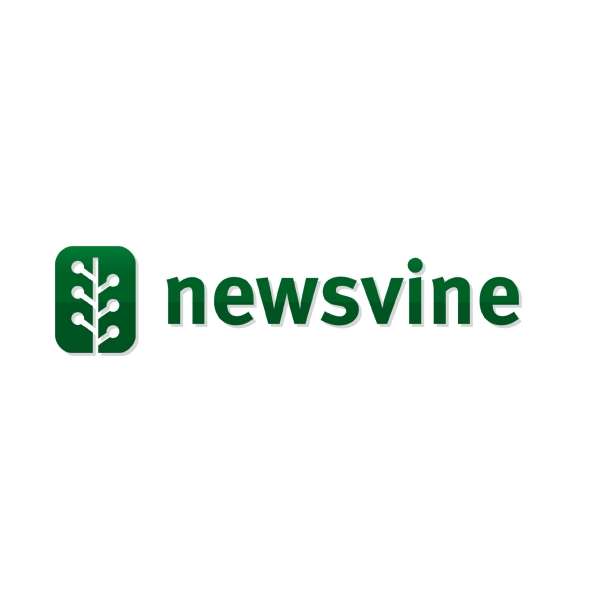
Newsvine Font
Fonts in UseNewsvine was a community-driven news website founded in 2005, allowing users to write articles, seed links, and participate in discussions. It was shut down by NBC News in 2017.
It is likely that the website logo employs FF Meta Bold, a humanist sans-serif font created by Erik Spiekermann, who aimed to make it a "total opposite of Helvetica." Further information on the font can be found here.